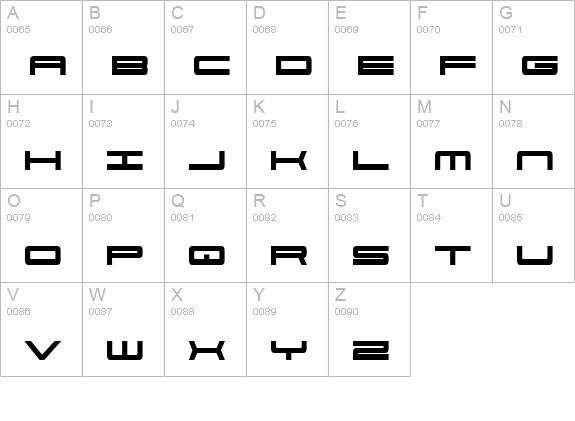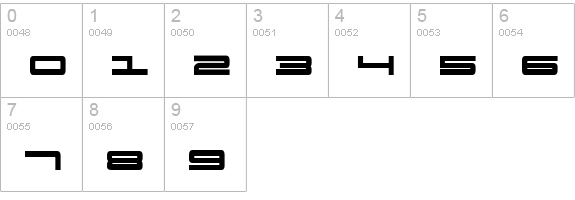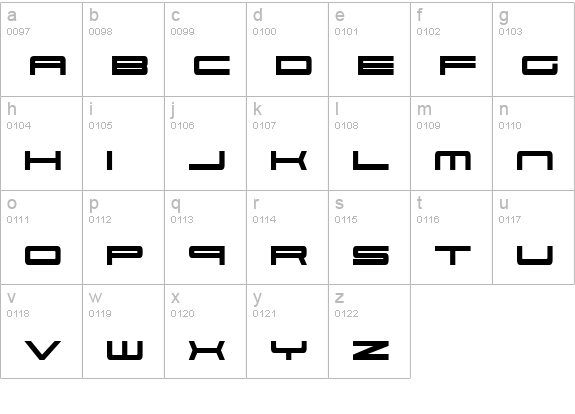
911 Porscha Bold Font Details
911 Porscha Bold is a strong, high-contrast variant in the 911 typeface family \xE2\x80\x94 well suited to headlines, attention-grabbing titles, and strong calls-to-action.
911 Porscha Bold font is a sleek and modern typeface that exudes elegance and sophistication. With its clean lines and bold strokes, this font is perfect for making a statement in any design project. The striking combination of sharp angles and smooth curves gives 911 Porscha Bold font a unique and eye-catching appeal. Whether you're designing a logo, poster, or website, this font will add a touch of class and professionalism to your work. The best part? 911 Porscha Bold font is available for free download at FontsMarket.com. So you can elevate your designs without breaking the bank. Don't miss out on this fantastic opportunity to enhance your creative projects with the stunning 911 Porscha Bold font. Download it now and take your designs to the next level!